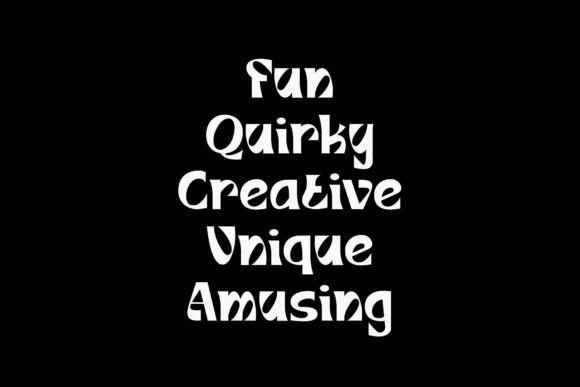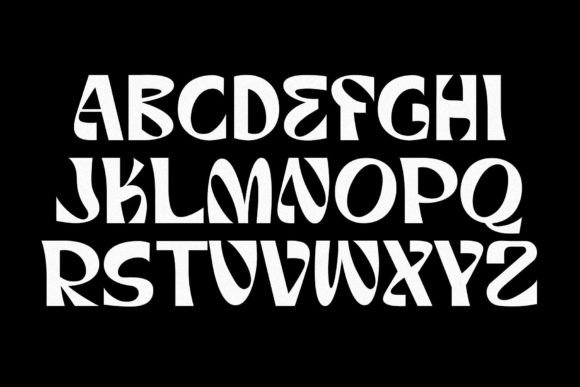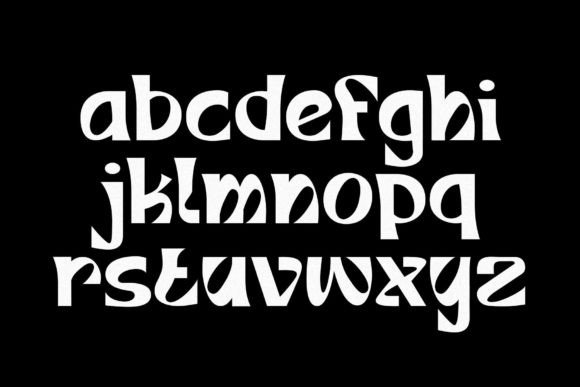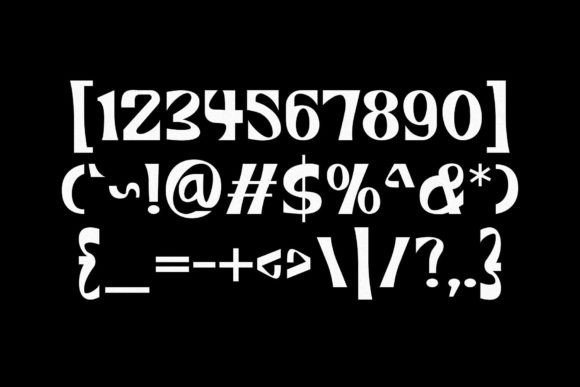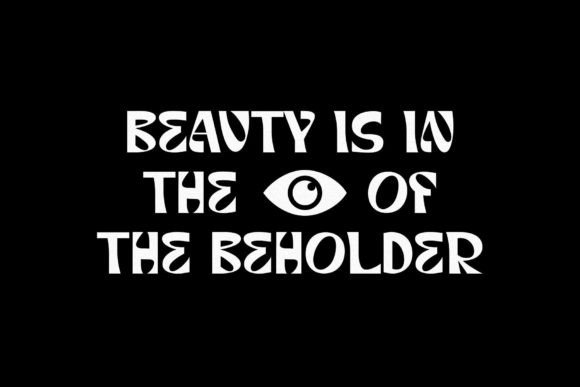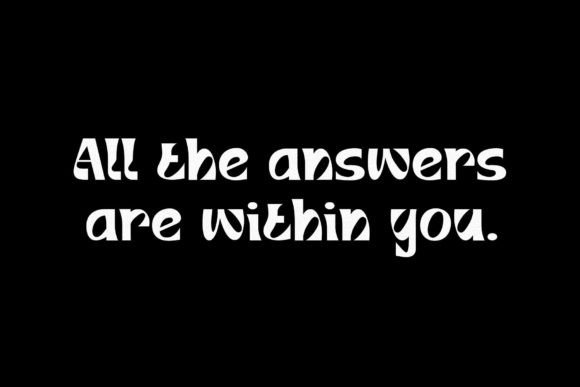
Introduction to Nestor Font
Have you ever been working on a creative project, and the perfect font just slips through your fingers? You envision a bold, eye-catching headline that screams attention, but the right typeface seems elusive. That’s where Nestor Font comes in – a retro-inspired display typeface that’s as lovable as it is quirky.
Whether you’re designing a poster for a music festival, creating a social media campaign, or branding a new business, Nestor Font is the perfect design resource to add some groovy curves and a bold personality to your project. Its high-quality design makes it perfect for a wide range of applications, from advertising to quotes and prints.
Key Features of Nestor Font
- High-quality vector design with transparent background for seamless integration into creative projects.
- Includes a comprehensive set of glyphs, including uppercase and lowercase letters, numbers, and punctuation marks.
- Designed to be highly legible at various font sizes, with a resolution of 300 DPI for crisp and clear rendering.
- Unique characteristics include a modern and elegant aesthetic, making it perfect for use in logo design, branding, and typography-based projects.
- Includes multi-language support, making it a versatile design resource for global creative projects.
Honest Review: Nestor Font
I recently had the chance to work with the Nestor Font, and I must say it’s been a game-changer for my high-quality creative projects. The clean and modern design made it perfect for my latest design resource.
- ✨ High-quality design that elevates my creative projects
- ✨ Versatile and easy to use
One limitation of the Nestor Font is its limited character set. While it’s still a great resource for many designers, it may not be suitable for projects that require a wide range of characters.
Overall, I’m thoroughly impressed with the Nestor Font. Its high-quality design, ease of use, and free download make it a must-have design resource for any creative project. If you’re looking for a modern and stylish font, look no further than the Nestor Font.
Tips for Getting the Most Out of Nestor Font
Use Nestor Font to create bold and creative headlines, or use it to add a touch of elegance to your designs. Experiment with different font sizes and styles to create visually appealing graphics. As a high-quality design resource, Nestor Font is perfect for any creative project.